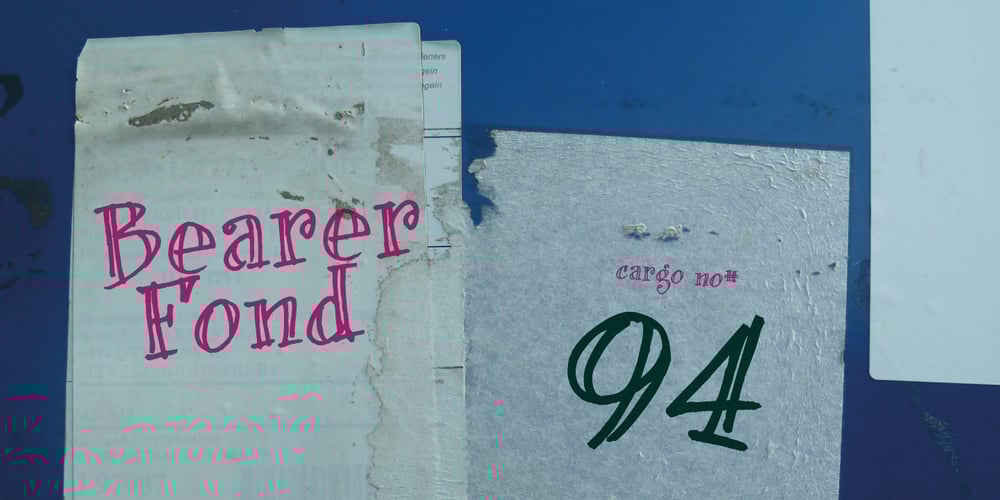
bearerFond Font Family was designed by Jeroen “Joebob” van der Ham and published by JOEBOB graphics. bearerFond contains 1 styles and family package options. BearerFond has been in my pen for years and I’ve used this way of writing a lot on cassette cases. Anyone still using cassettes? Me neither, so in order to keep it alive I have made a font out of it and named it bearerFond; as in bearer bond, since it looks like it could be used on official documents. Nothing too official though.